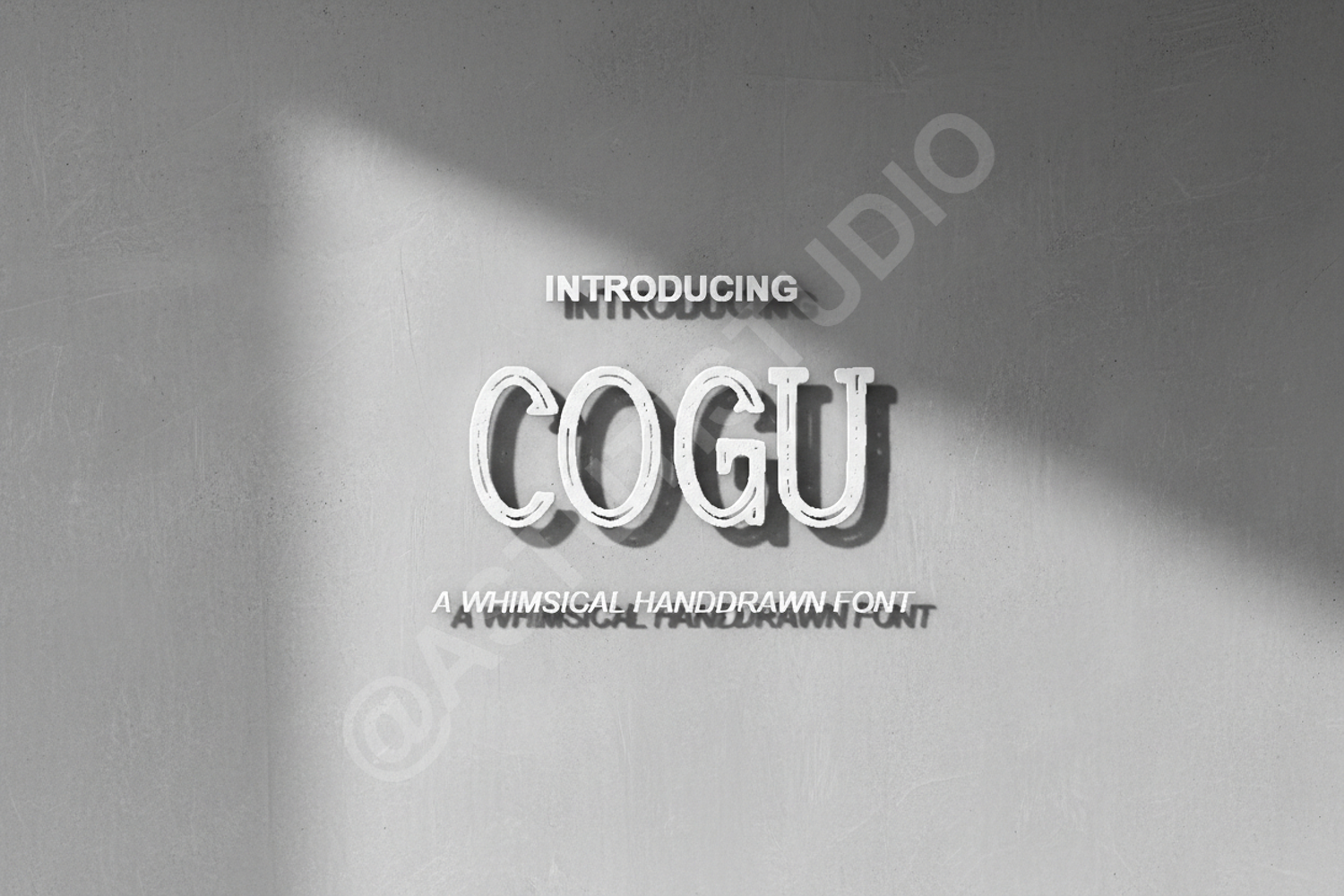
Cogu - Sophisticated Modern Sans Serif Typeface
Cogu
Cogu is a meticulously crafted sans serif font that balances modern sophistication with timeless elegance. Designed for creators who demand precision and versatility, Cogu offers a clean aesthetic that elevates any project from standard to premium. Whether you are building a brand identity or designing a high-end publication, this typeface provides the clarity and character needed to stand out in a crowded market.
- Branding and Visual Identity: Create memorable logos and cohesive brand systems.
- Editorial Design: Perfect for magazine headers, body text, and stylish layouts.
- Digital Presence: Enhance website UI/UX with a highly readable and modern typeface.
- Product Packaging: Add a touch of luxury to labels and box designs.
- Social Media: Craft professional and engaging graphics for Instagram and Pinterest.